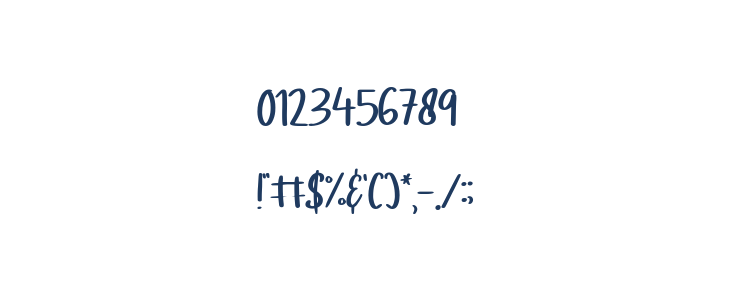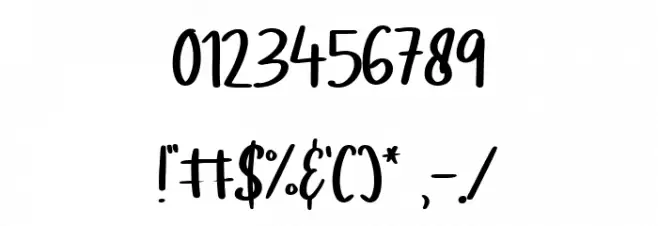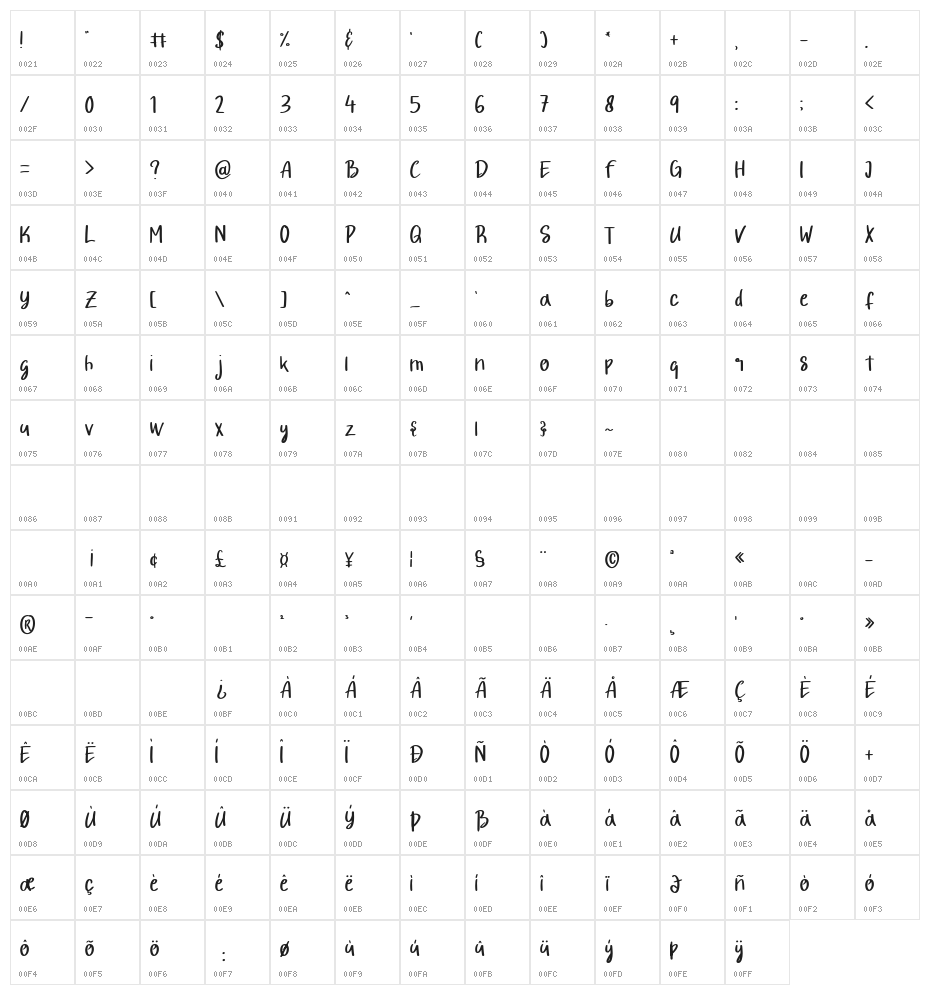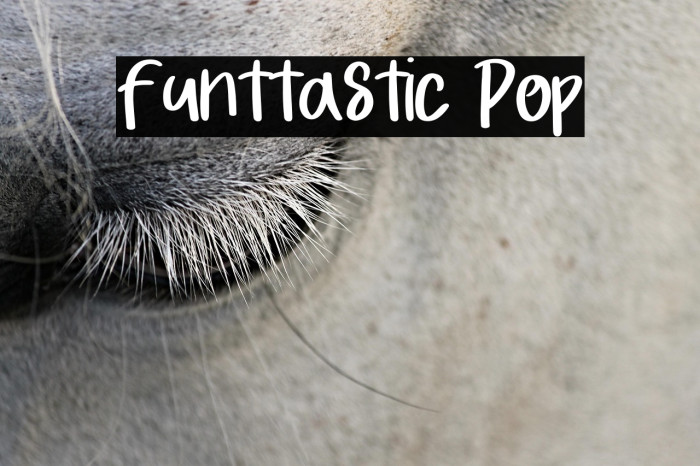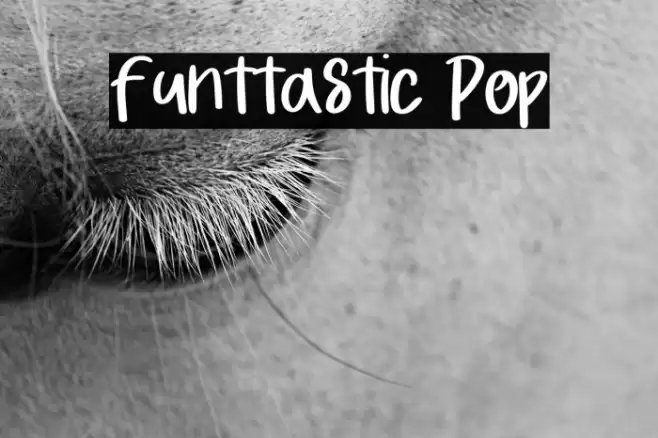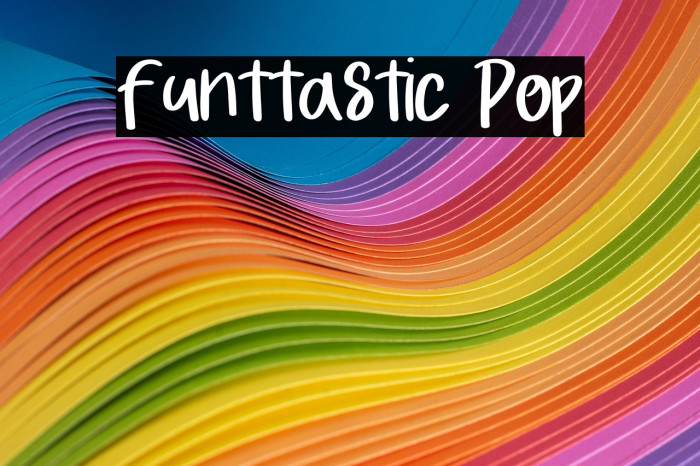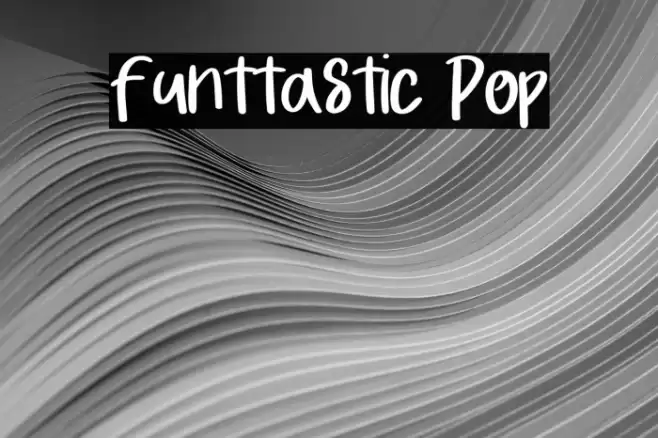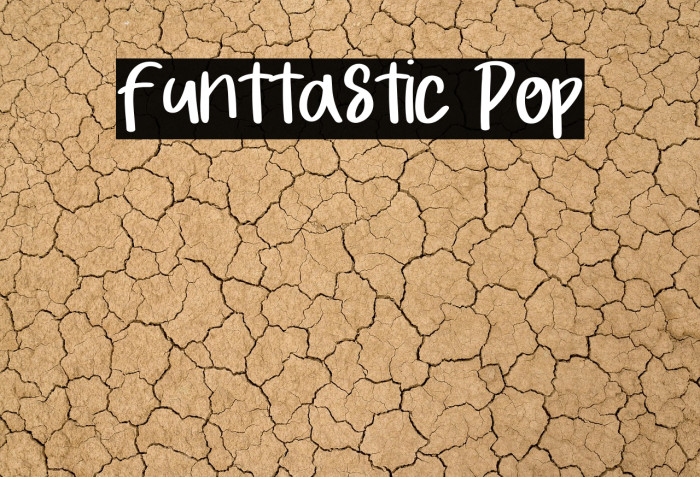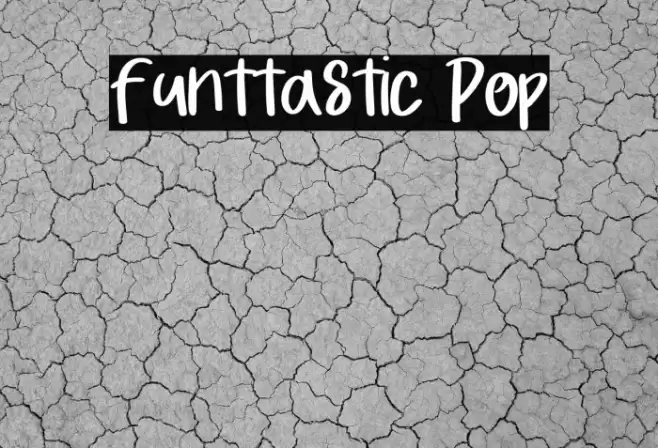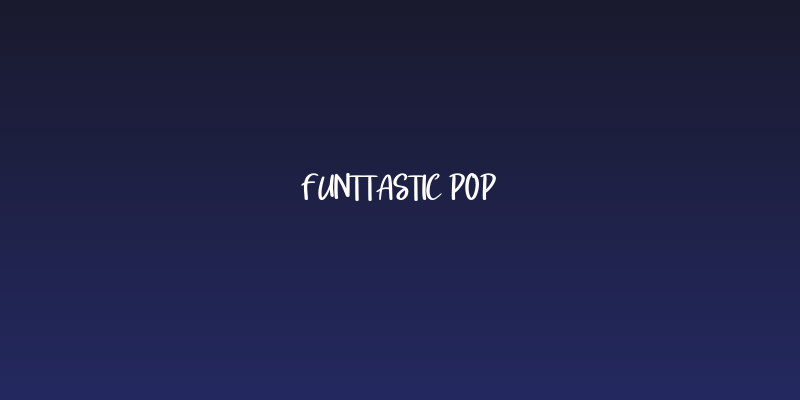
Funttastic Pop Font
Funttastic Pop Description
This playful and energetic font features a handwritten style with a lively and casual appearance. The letters are slightly slanted, giving it a dynamic feel, while the strokes vary in thickness, adding a touch of whimsy. The characters are well-spaced, ensuring readability, and the overall design exudes a friendly and approachable vibe. It's perfect for projects that require a personal touch or a fun, informal look.
| Use Case | Headlines, Informal text, Branding |
| Proposed Projects | Ideal for greeting cards, children's books, playful branding, and social media graphics. |